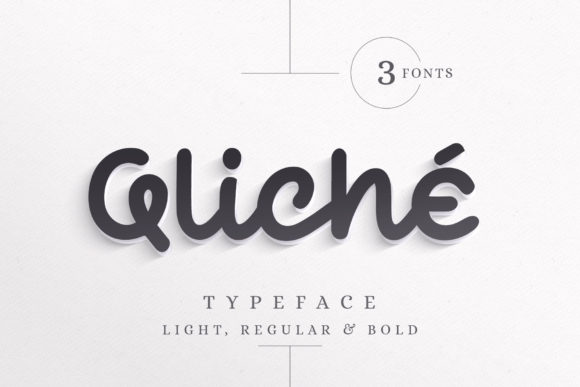
Behold the Qliché Font, the script typeface poised to make your designs stand out amidst a sea of mediocrity. Created by the ingenious Ayca Atalay, this monoline script typeface comes in 3 weights, each possessing a distinctive personality.
The Qliché Font breaks free from conventional norms, defying the boundaries of ordinary typography. Its audacious style commands attention, refusing to blend into the background. Whether gracing logos, headlines, or posters, Qliché demands to be seen.
With its innate ability to shine in even the most compact dimensions, Qliché Font defies expectations. Its compact structure ensures it retains its visual integrity, even when confined to small spaces, making it an ideal choice for a diverse array of design applications.
Unleash your creativity with Qliché Font, the ultimate tool for crafting captivating designs that linger in the memory. Its versatility transcends genres, making it a perfect fit for logos, headlines, posters, and myriad other projects.
Experience the transformative power of Qliché Font. Its bold, unconventional style will elevate your designs to new heights, leaving a lasting impression on your audience.